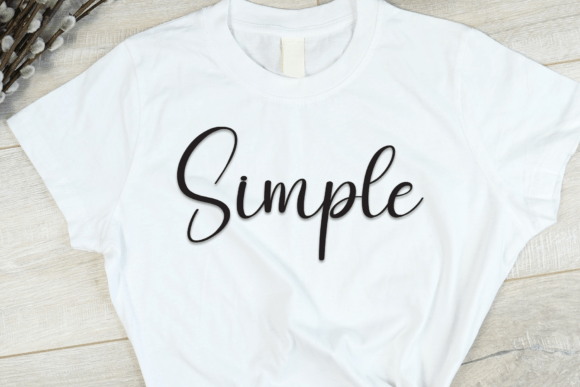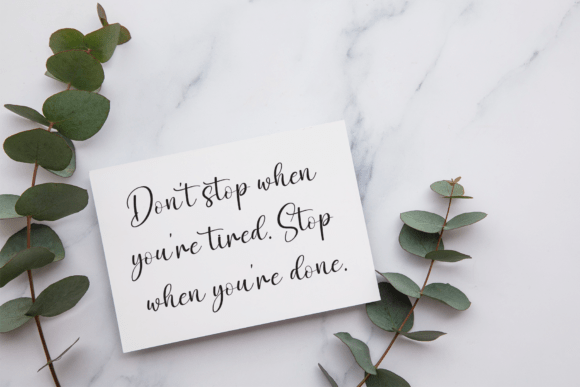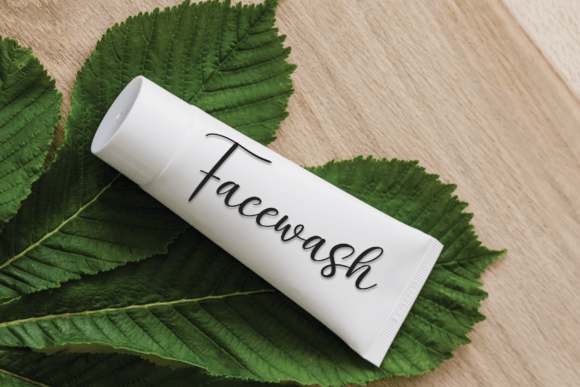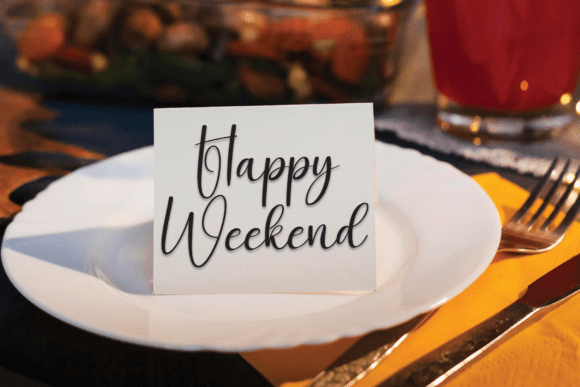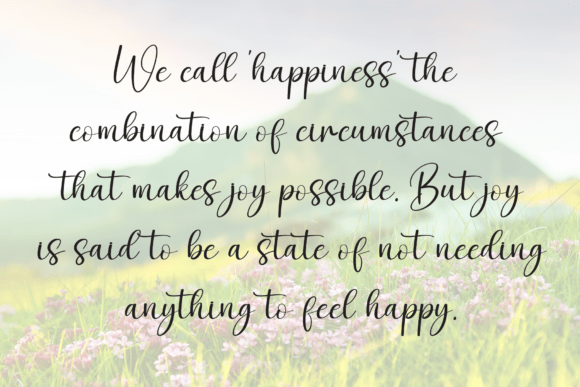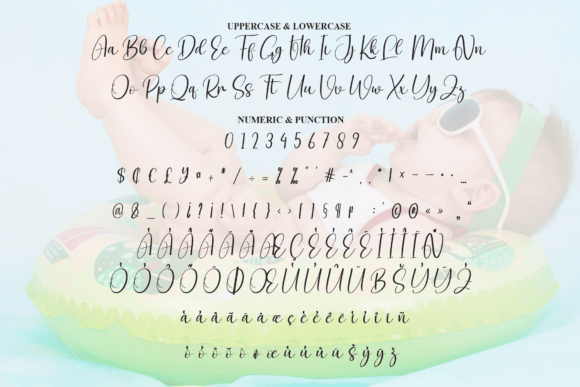
Babyish Font: Elevate Your Designs with a Touch of Whimsy and Sophistication
In the world of typography, fonts play a pivotal role in conveying the tone and personality of a design. Among the myriad of typefaces available, the Babyish font stands out for its unique blend of modern elegance and playful charm. This stylish handwritten script font is designed to bring a personal touch to various design projects, making it an ideal choice for designers and crafters looking to infuse their work with warmth, sophistication, and creativity.
The Essence of Babyish Font
Babyish is not just another script font; it’s a carefully crafted typeface that combines fluid strokes with charming curves, creating a visually appealing aesthetic that’s both modern and endearing. Its design is inspired by the beauty of handwritten scripts, yet it maintains a level of sophistication that is hard to achieve with more traditional fonts. This balance makes Babyish versatile and suitable for a wide range of applications, from logos and packaging to invitations and more.
Key Features of Babyish Font
- Fluid Strokes and Charming Curves: The font’s fluidity and the elegant curves of its letters give it a dynamic and friendly appearance, making any text stand out with a personal touch.
- Modern Elegance: Despite its playful nature, Babyish exudes a sense of modern elegance, making it perfect for designs that require a touch of sophistication.
- Versatility: Its adaptability is one of Babyish’s strongest assets. It can be used in various design projects, including but not limited to logos, packaging, invitations, and digital content.
- Warmth and Creativity: The font adds a layer of warmth and creativity to designs, engaging the audience and making the content more memorable.
Applications of Babyish Font
The versatility of Babyish font makes it suitable for a multitude of design projects. Here are some of the most popular applications:
- Logos: For businesses looking to establish a brand identity that’s both modern and approachable, Babyish can be a great choice. Its unique style can help a logo stand out and make a brand more memorable.
- Packaging: Adding a personal touch to product packaging can significantly enhance customer experience. Babyish font can be used to create labels, product names, and descriptions that resonate with the target audience.
- Invitations: Whether it’s a wedding invitation, a birthday party invite, or any other event, Babyish can add a touch of elegance and whimsy, setting the tone for a memorable occasion.
Tips for Using Babyish Font Effectively
To maximize the impact of Babyish font in your designs, consider the following tips:
- Pair with Complementary Fonts: When combining Babyish with other fonts, choose typefaces that complement its playful yet elegant nature. A simple sans-serif font can work well for body text, creating a nice contrast.
- Adjust Letter Spacing: For optimal readability, especially in longer texts, adjust the letter spacing. This can help maintain a clean and airy look, preventing the text from appearing too crowded.
- Use Appropriate Colors: The color scheme should align with the brand’s identity or the theme of the design. Babyish font looks great in both soft, pastel colors and more vibrant tones, depending on the desired effect.
Babyish font is a stylish and versatile typeface that can elevate any design project with its unique blend of modern elegance and playful charm. Whether you’re a designer looking to create stunning visual content or a crafter aiming to add a personal touch to your creations, Babyish is an excellent choice. Its fluid strokes, charming curves, and adaptability make it ideal for a wide range of applications, from logos and packaging to invitations and digital content. By incorporating Babyish into your designs, you can add warmth, sophistication, and creativity, making your work truly stand out.